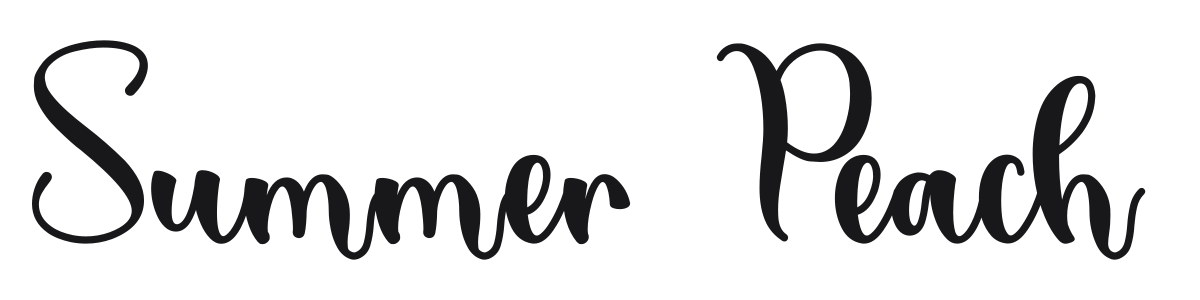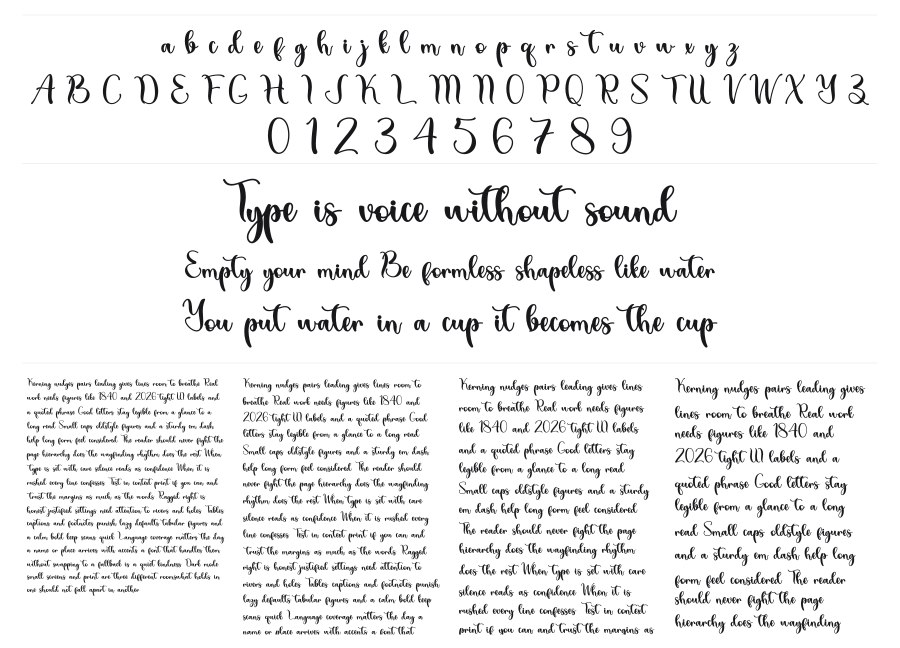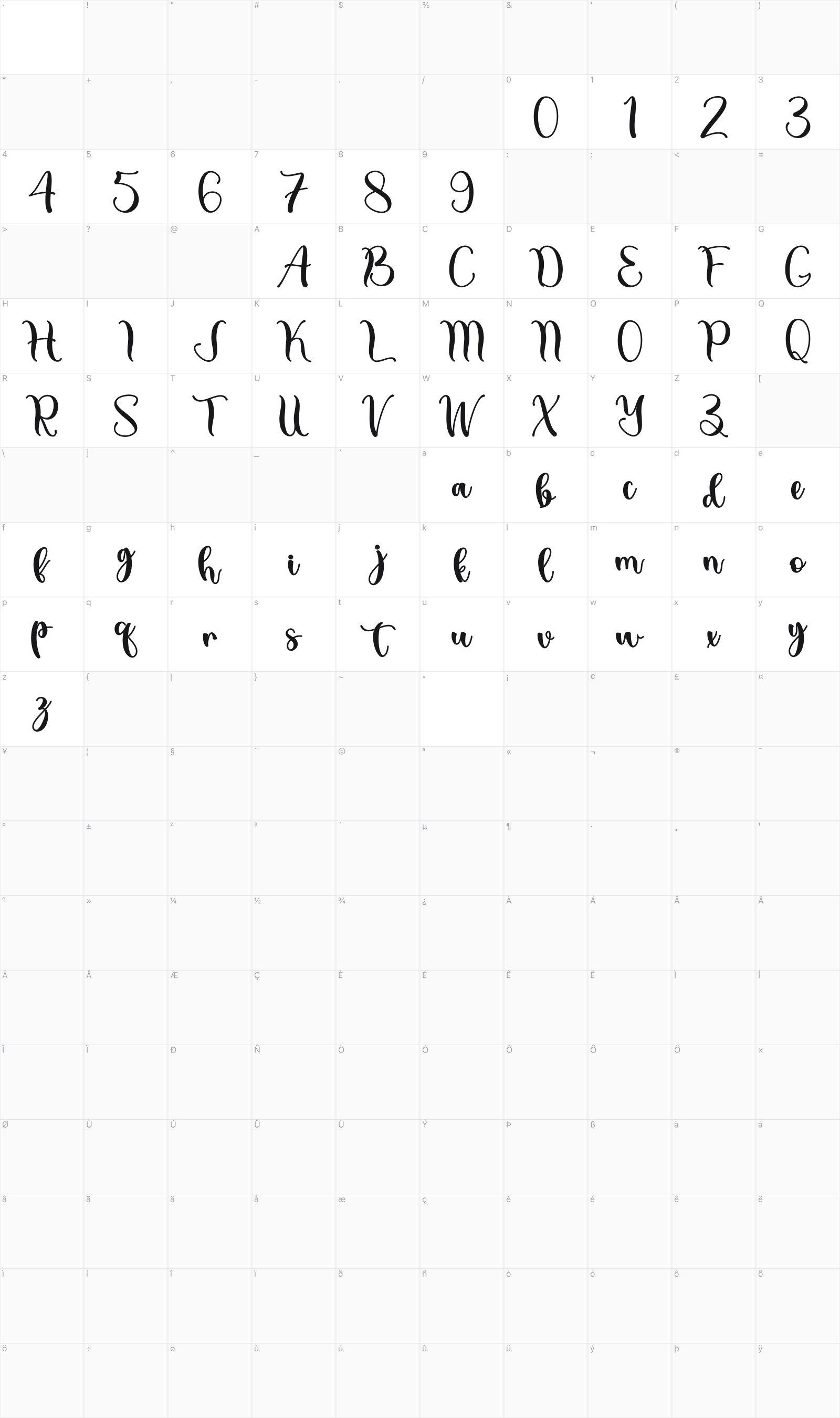
Summer Peach
Summer Peach is a bold casual brush script with bouncing energy and strong stroke contrast. Looping ascenders and fluid connections between letters give it an exuberant hand-lettered quality that feels warm and approachable. It thrives at large sizes on packaging, social media graphics, and lifestyle branding.